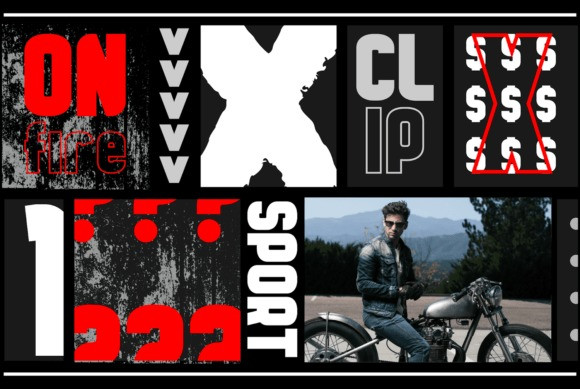
Detroit Font
How outstanding! Detroit Sans Serif Font is a modern and bold display font. Trendy and stylish, this font will elevate each of your creations.